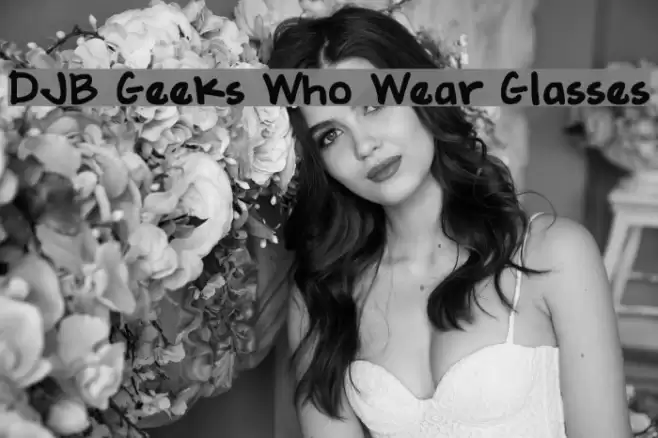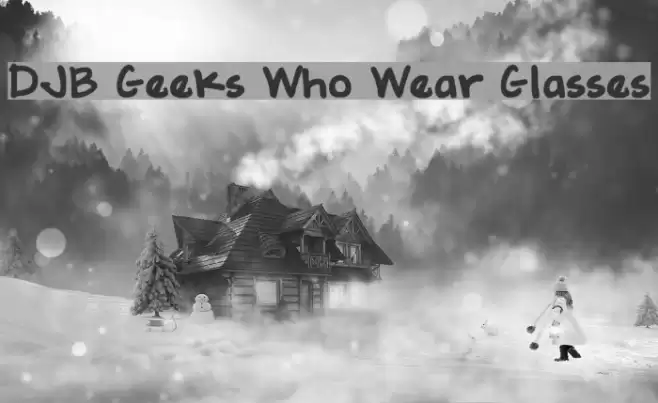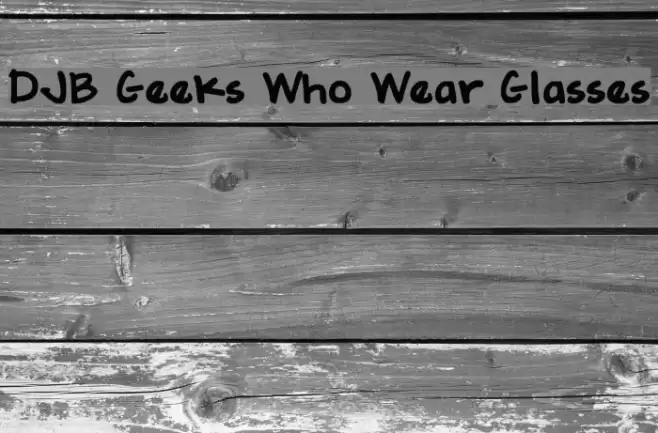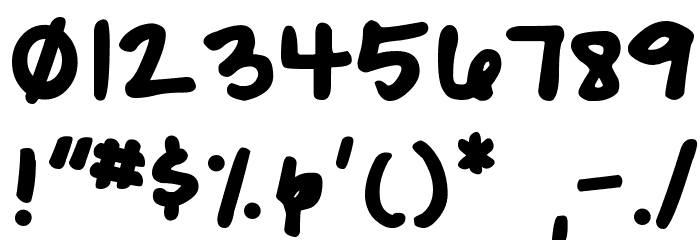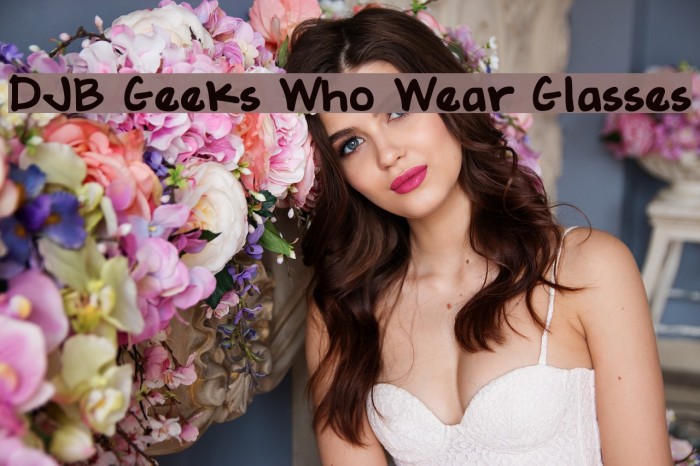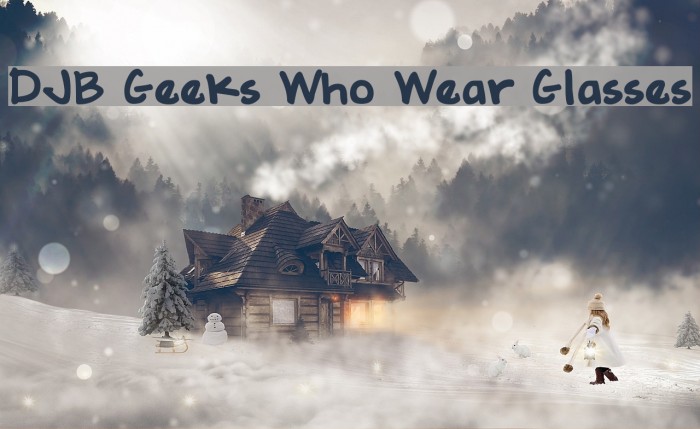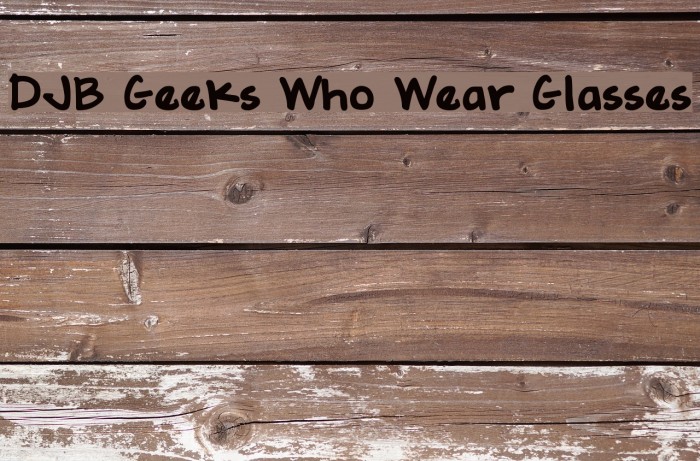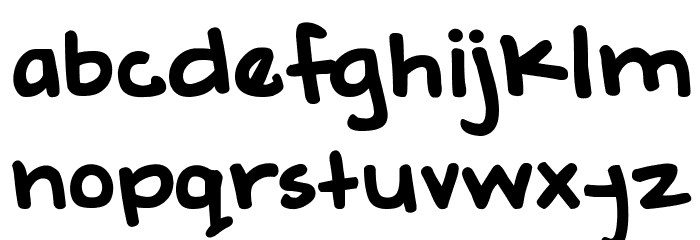
DJB Geeks Who Wear Glasses Font
DJB Geeks Who Wear Glasses Description
This playful and informal font features a handwritten style with a casual, friendly appearance. The characters are rounded and slightly irregular, giving them a personal and approachable feel. The strokes are consistent in weight, providing a uniform look across all letters and numbers. The font includes a full set of uppercase and lowercase letters, numerals, and a variety of special characters. Its design is reminiscent of handwriting with a marker or felt-tip pen, making it suitable for projects that require a touch of whimsy and creativity.
A playful, handwritten-style font with rounded, casual characters from Handwritten fonts.
- Proposed Projects: Ideal for children's books, greeting cards, casual invitations, and playful branding.
- Overall Style: Casual
- Use Case: Headlines, Informal text, Creative projects